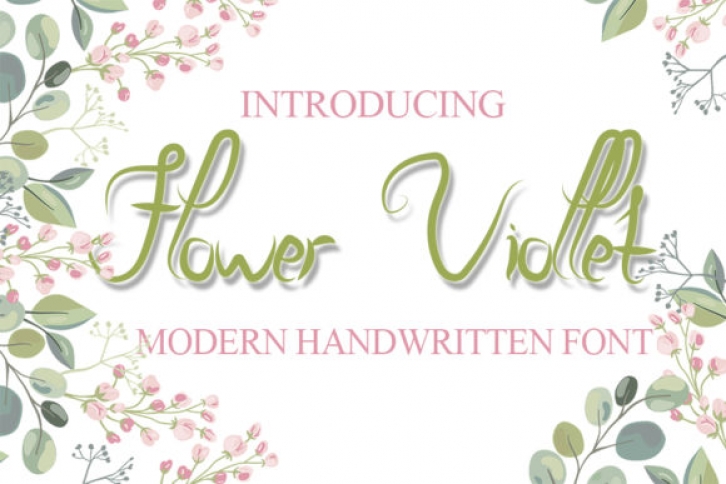
Flower Viollet is a sweet and delicate handwritten font. Dainty and joyful, this font will be ideal for writing wedding invitations, cards or any other design that may need a romantic, personalized touch!